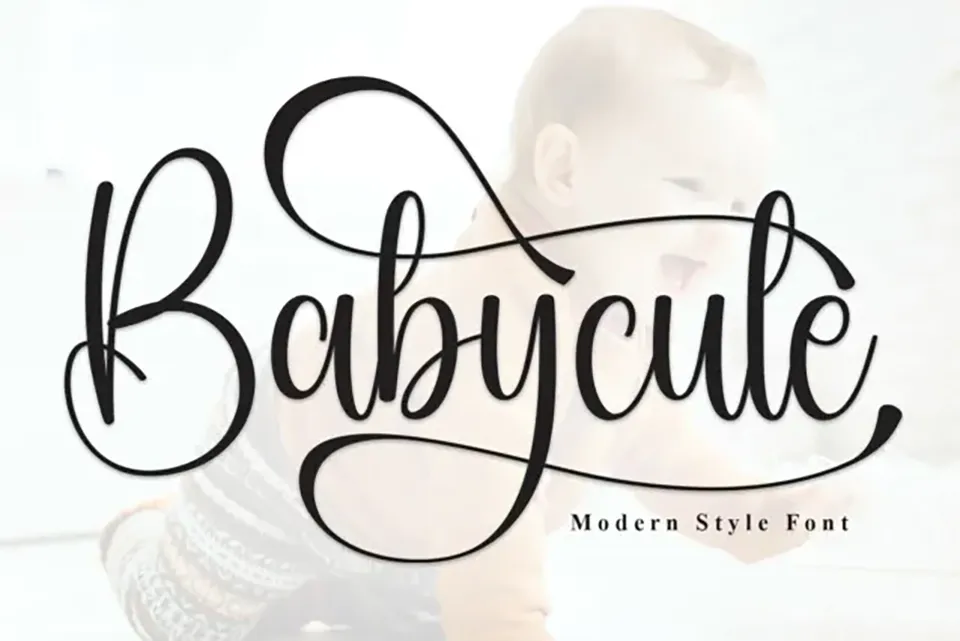
Babycute Calligraphy Font
The Babycute Calligraphy Font is a sweet and friendly handwritten font with a natural and unique style, making it an excellent choice for a wide range of creative designs. Its charming calligraphic strokes are perfect for projects such as invitations, branding, stationery, wedding designs, and social media posts, adding a touch of elegance and warmth to your typography.